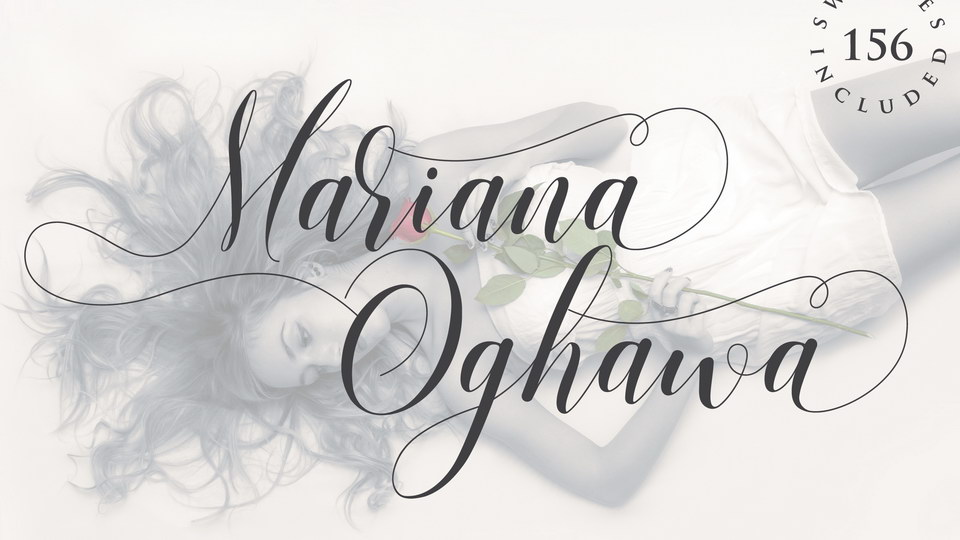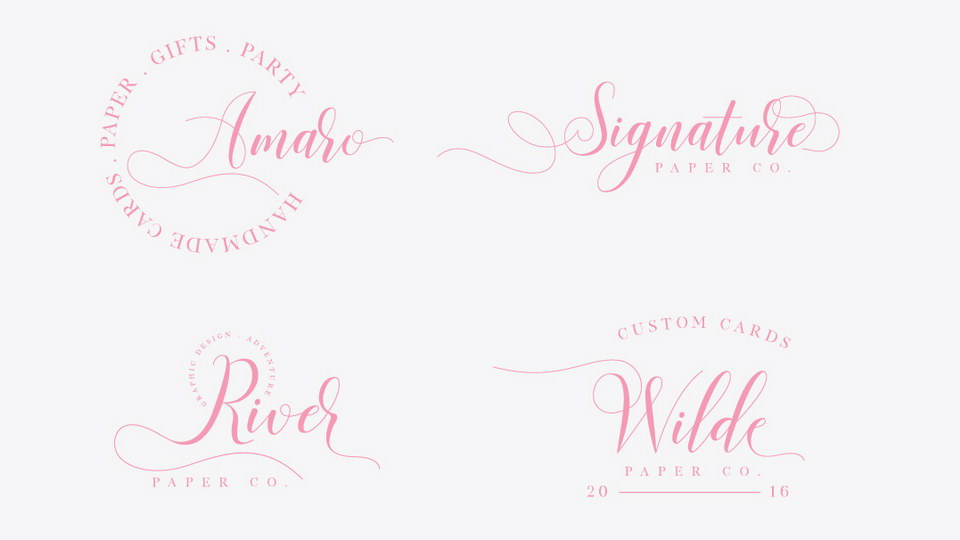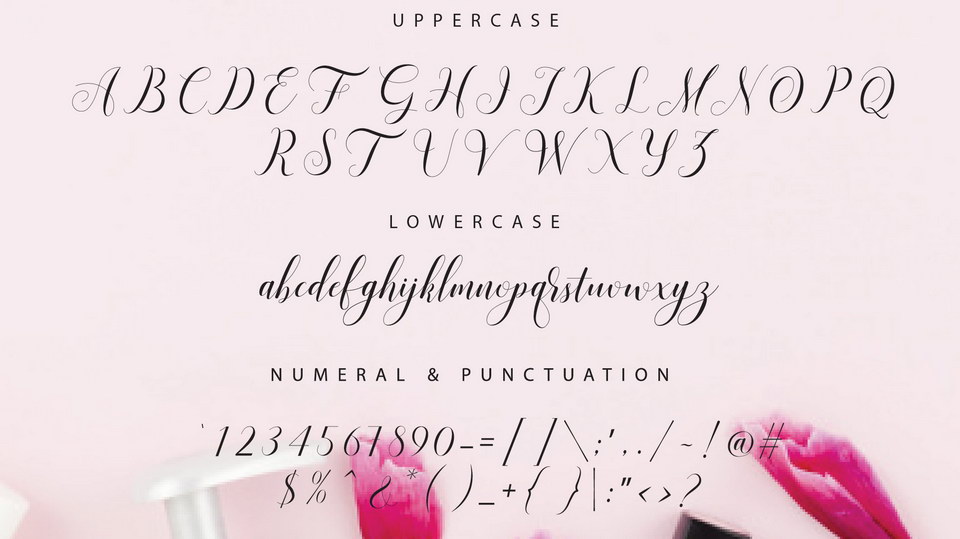
Mariana Oghawa is a stylish modern calligraphy script font. It offers personal touch to art project with elegant, classy and modern look. Mariana Oghawa script present gorgeous typographic style that will be perfect for many different project such as logos & branding, invitation, stationery, wedding designs, social media posts, advertisements, product packaging, product designs, label, photography, watermark and more.